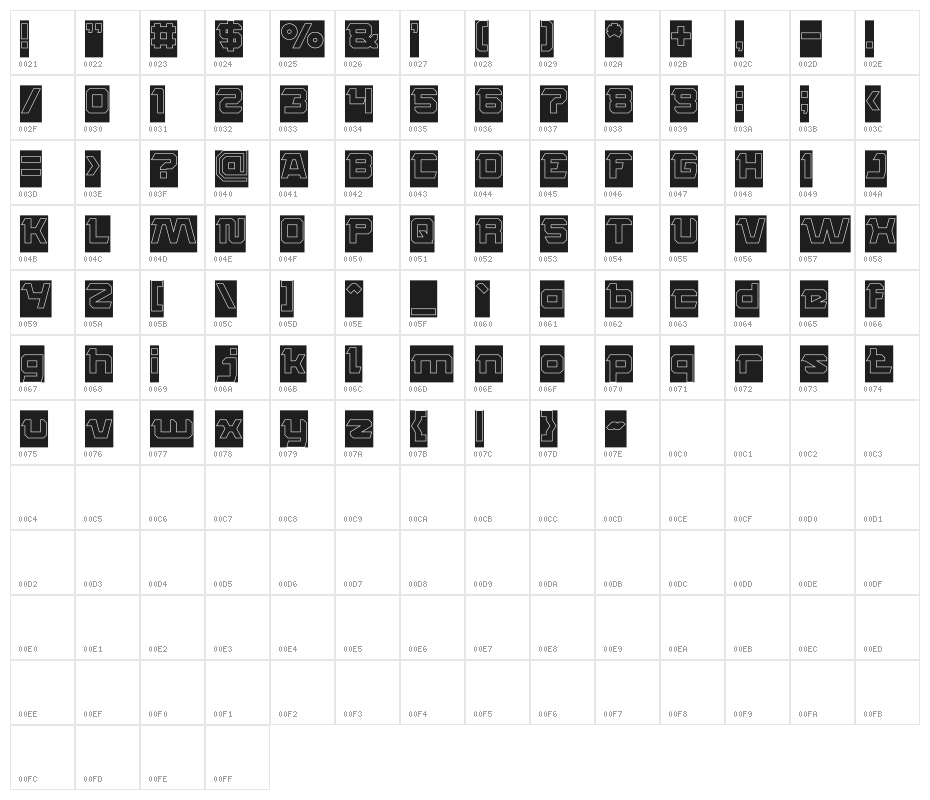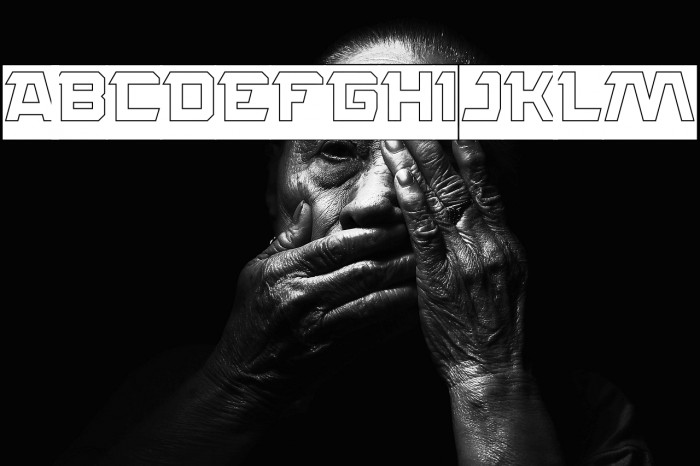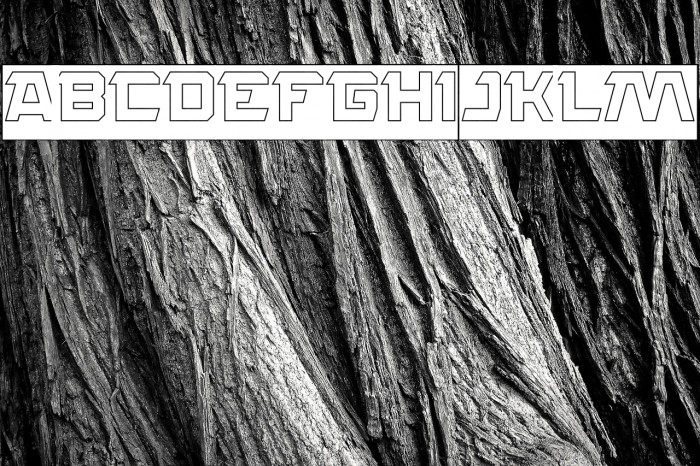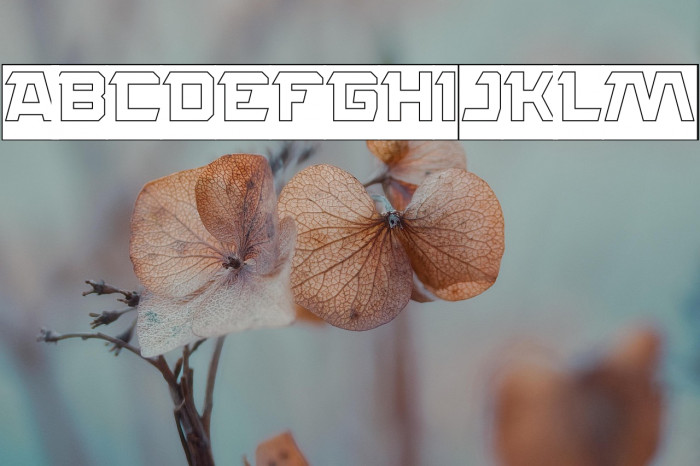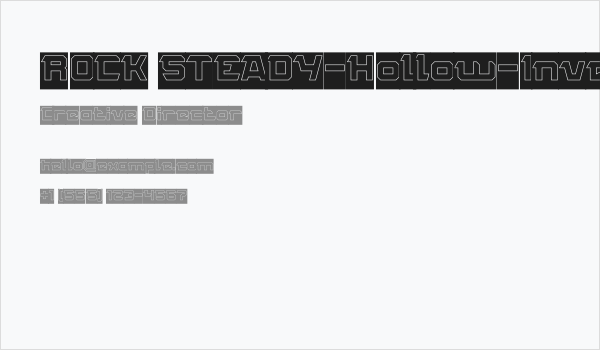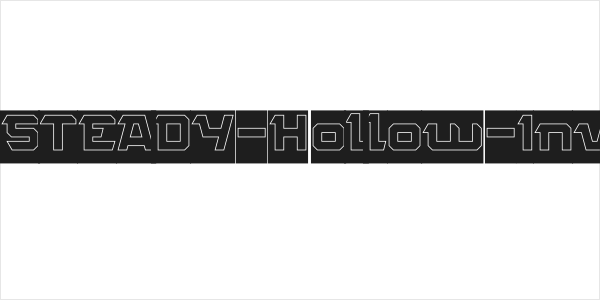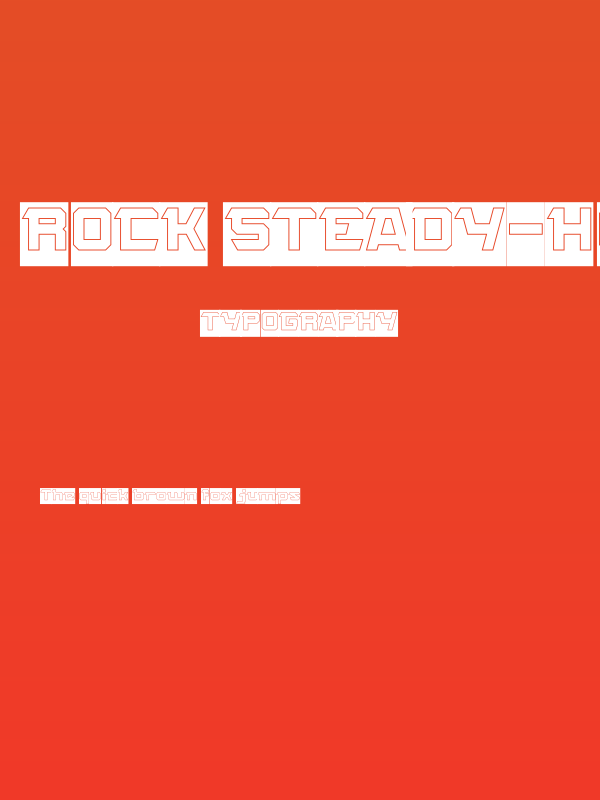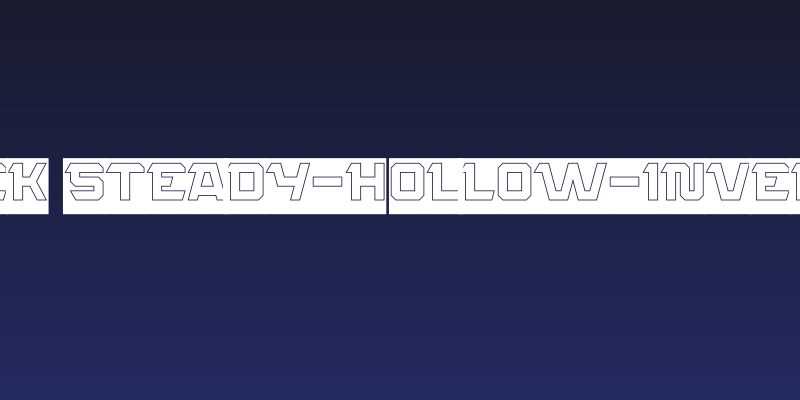
ROCK STEADY-Hollow-Inverse Font
ROCK STEADY-Hollow-Inverse Description
This font features a bold, geometric design with a hollow, inverse style that gives it a striking and modern appearance. The characters are outlined with a thick border, creating a sense of depth and dimension. The uppercase and lowercase letters maintain a consistent width, contributing to a uniform look. The numbers and special characters follow the same design principles, ensuring cohesion across all elements. This font's unique style makes it ideal for projects that require a strong visual impact.
| Proposed Projects | Ideal for posters, logos, headlines, and branding materials that require a bold and modern look. |